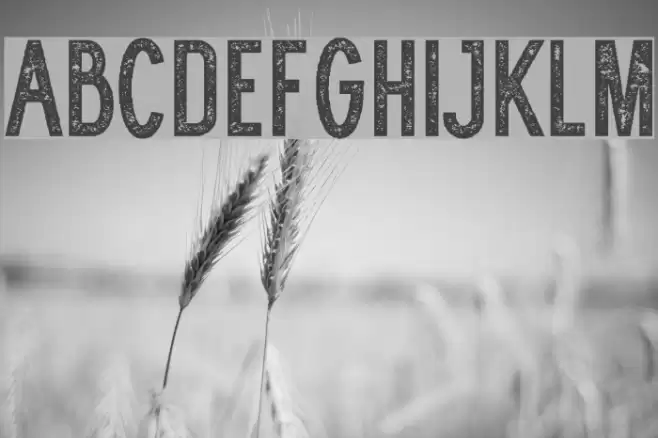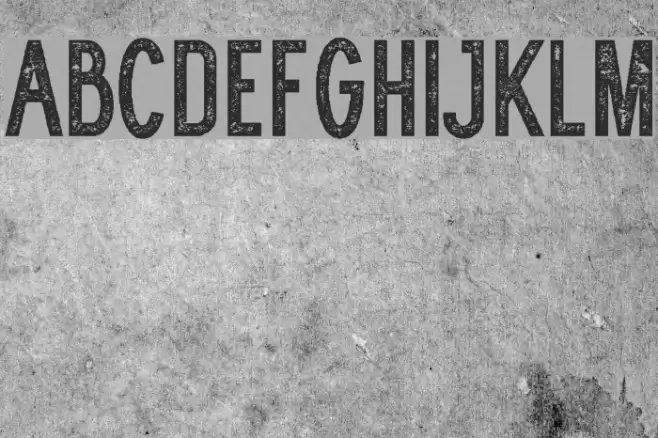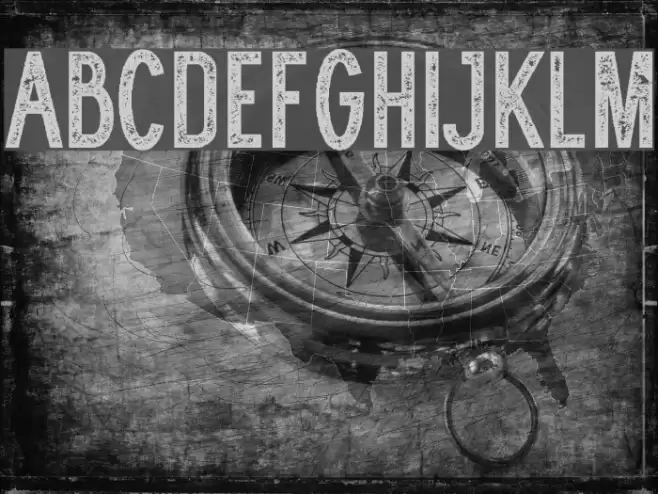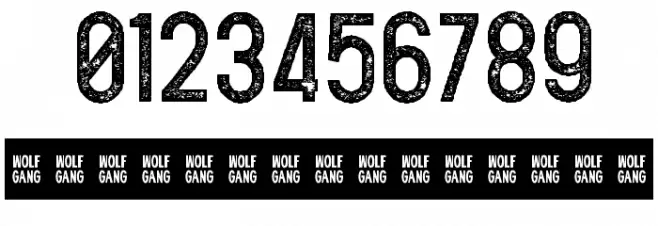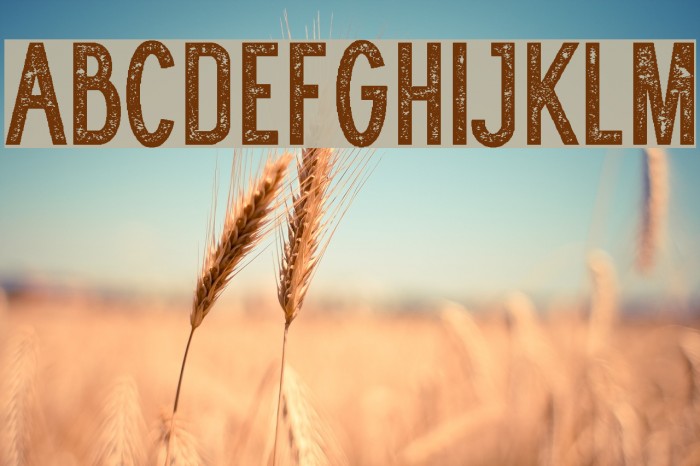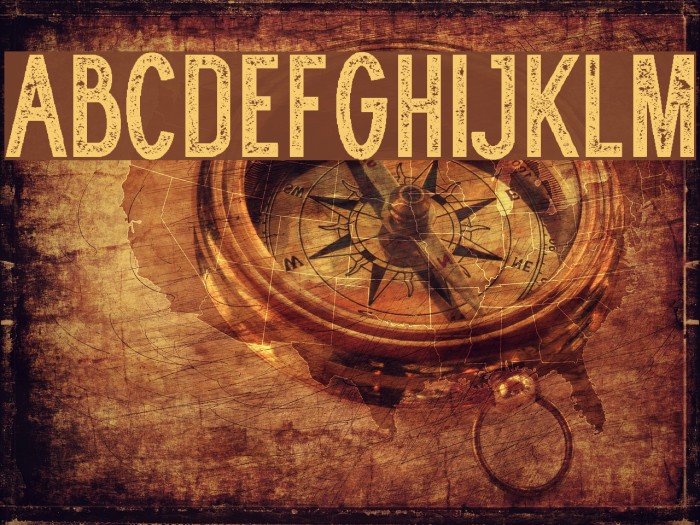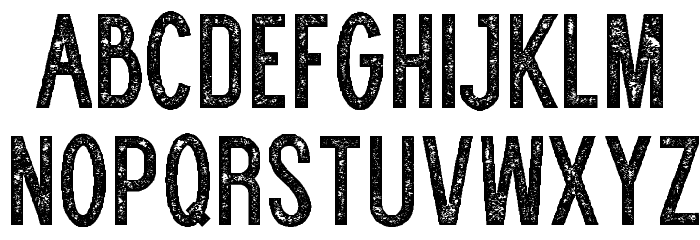
WOLF GANG ROUGH VINTAGE Font
WOLF GANG ROUGH VINTAGE Description
This font features a rough, textured appearance that gives it a vintage and distressed look. The uppercase letters are bold and prominent, with a slightly uneven texture that adds character and a handcrafted feel. The numbers follow the same style, maintaining consistency across the font. The design is reminiscent of old printing techniques, making it ideal for projects that require a retro or rustic aesthetic. Its boldness ensures readability while the unique texture adds visual interest.
A bold, textured font with a vintage, distressed style from Classic fonts.
- Proposed Projects: Ideal for vintage posters, retro-themed branding, rustic packaging, and any design needing a handcrafted touch.
- Overall Style: Vintage